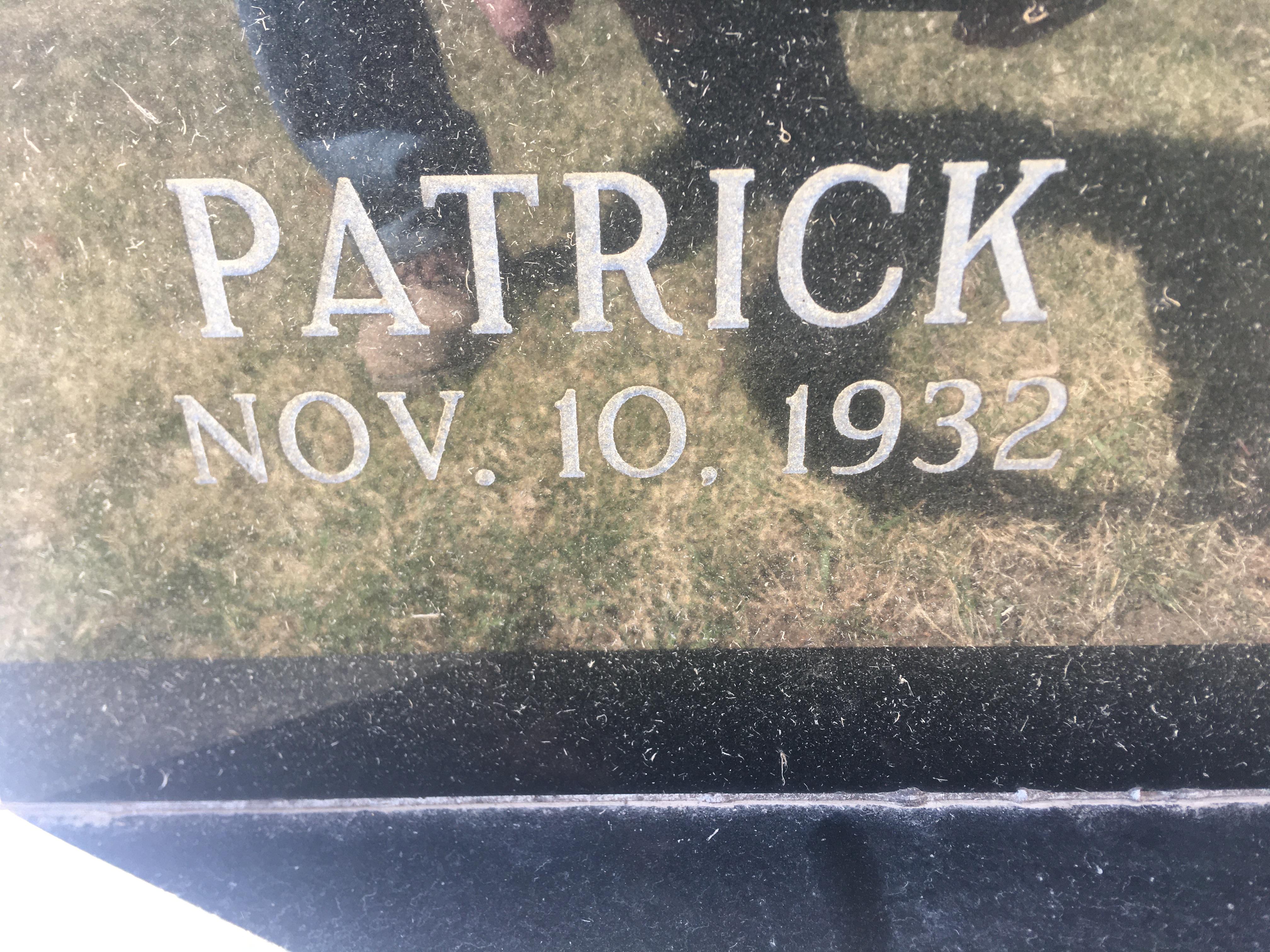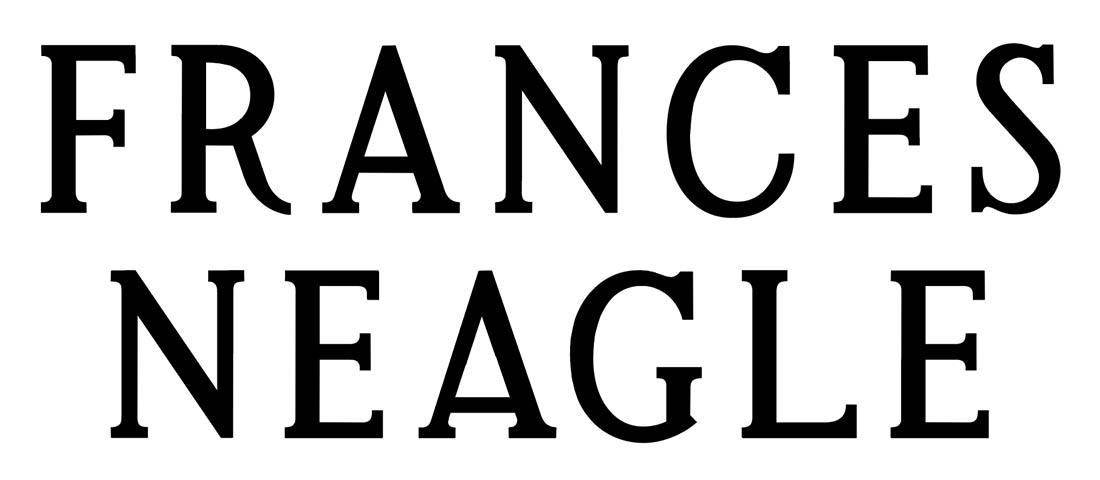
This is a digital version of the ScotchKut “Shadow Edge” alphabet, with the outline and shadow removed, and the crossbar on the ‘A’ has been lowered. The original alphabet did not contain any numbers, and the numbers here do not match those from existing digital versions I’ve seen.
I believe this is a custom font made by a monument shop and is not available in any software. It is possible that the numbers from another existing font were used and modified. The 3 for instance does not have a serif at the center joint, which is not typical of a Modified Roman font. The zero is wider and more oval than a typical Modified Roman and is similar to the zero on the original metal Spacerite Classic Roman alphabet.
Attached is an image of a digital version of the Shadow Edge font with outline and shadow removed. For comparison, I’ve kept the ‘A’ on top intact, and below I’ve lowered the crossbar to match your photos.